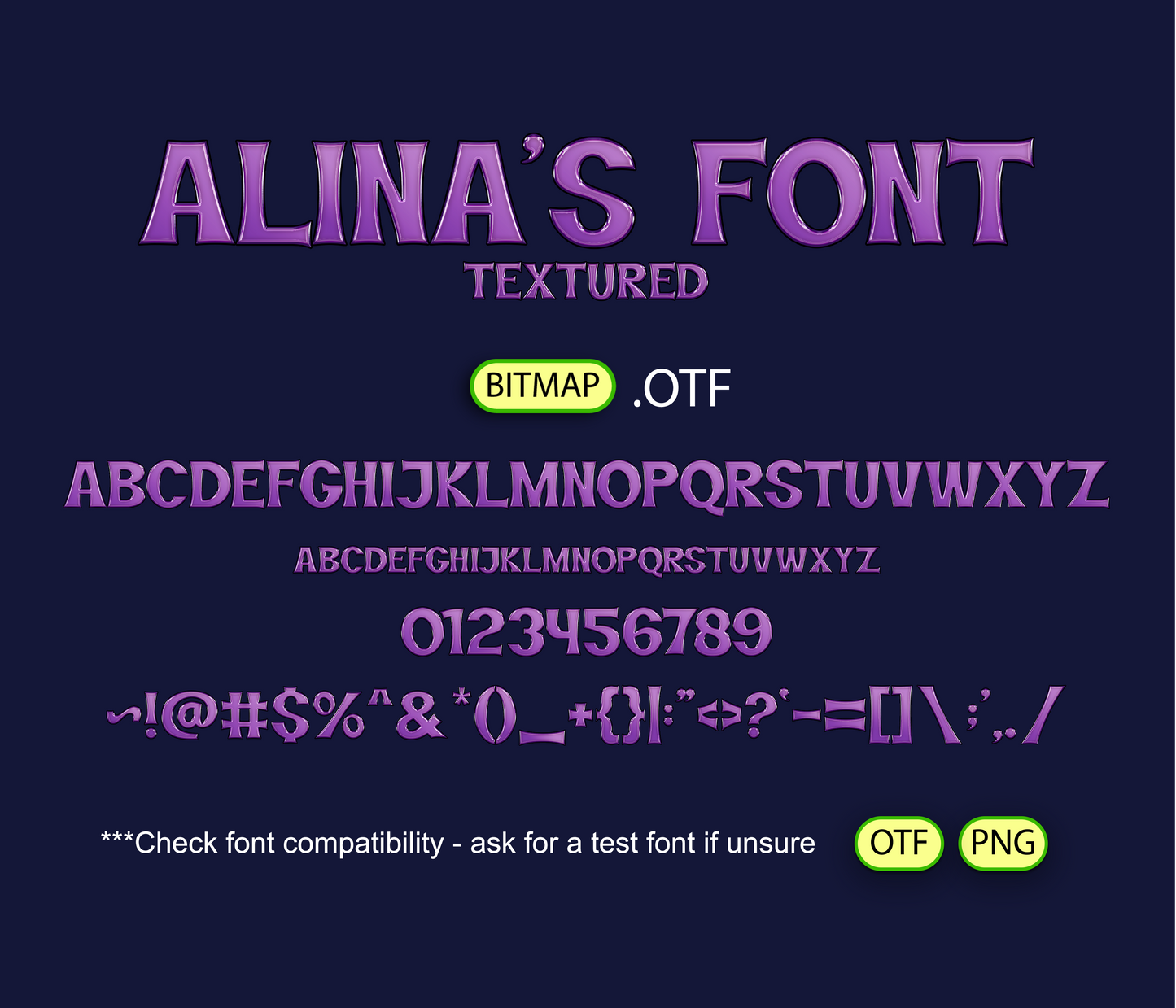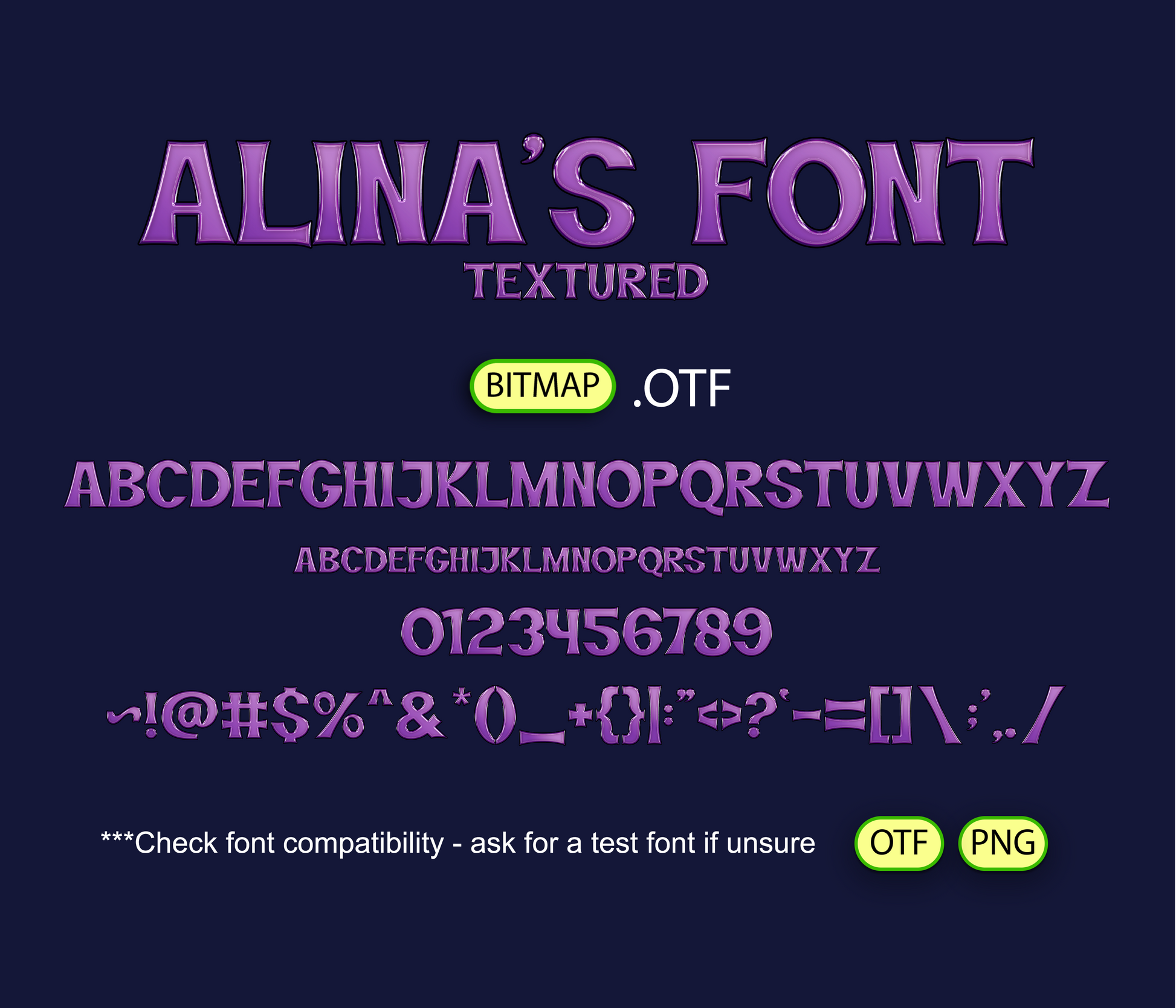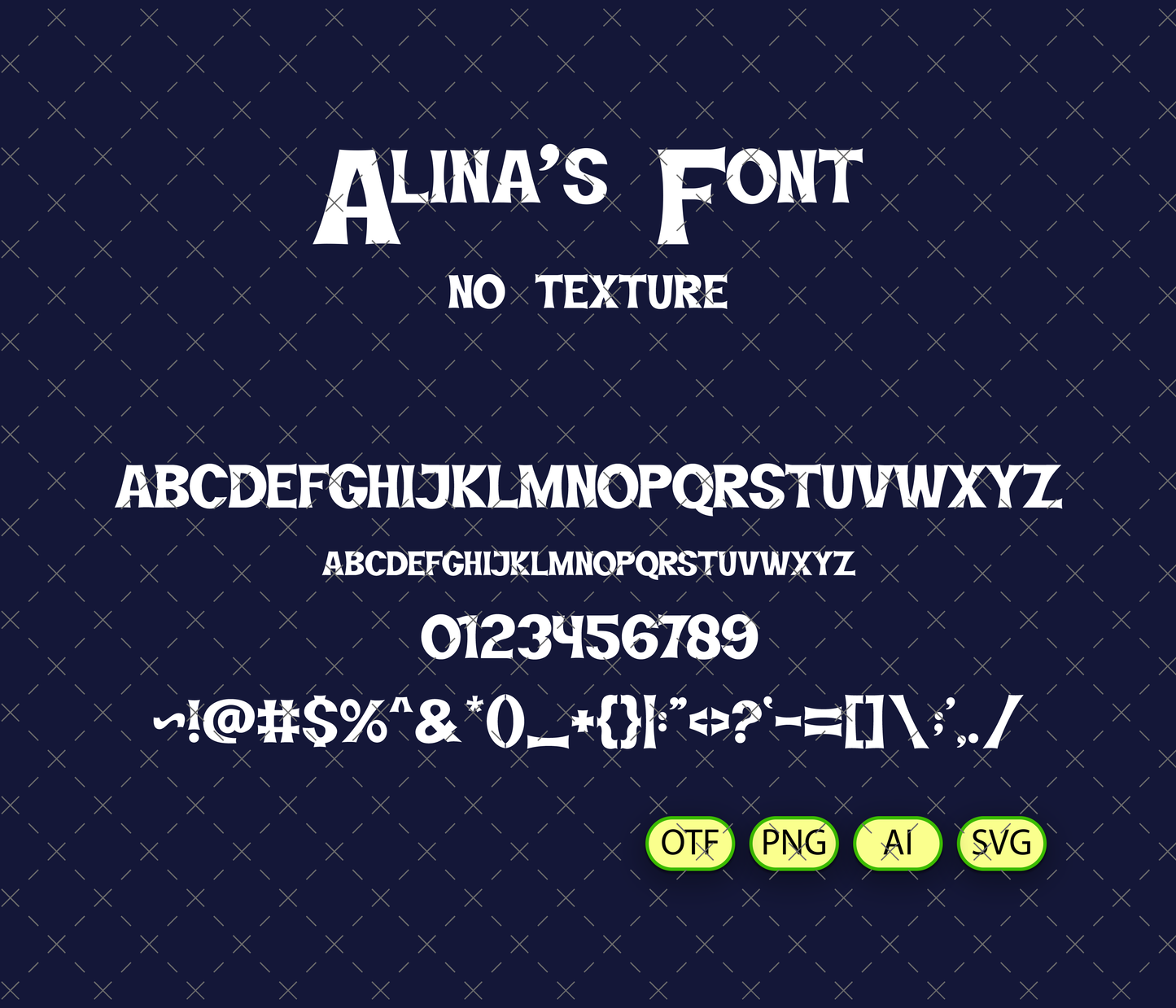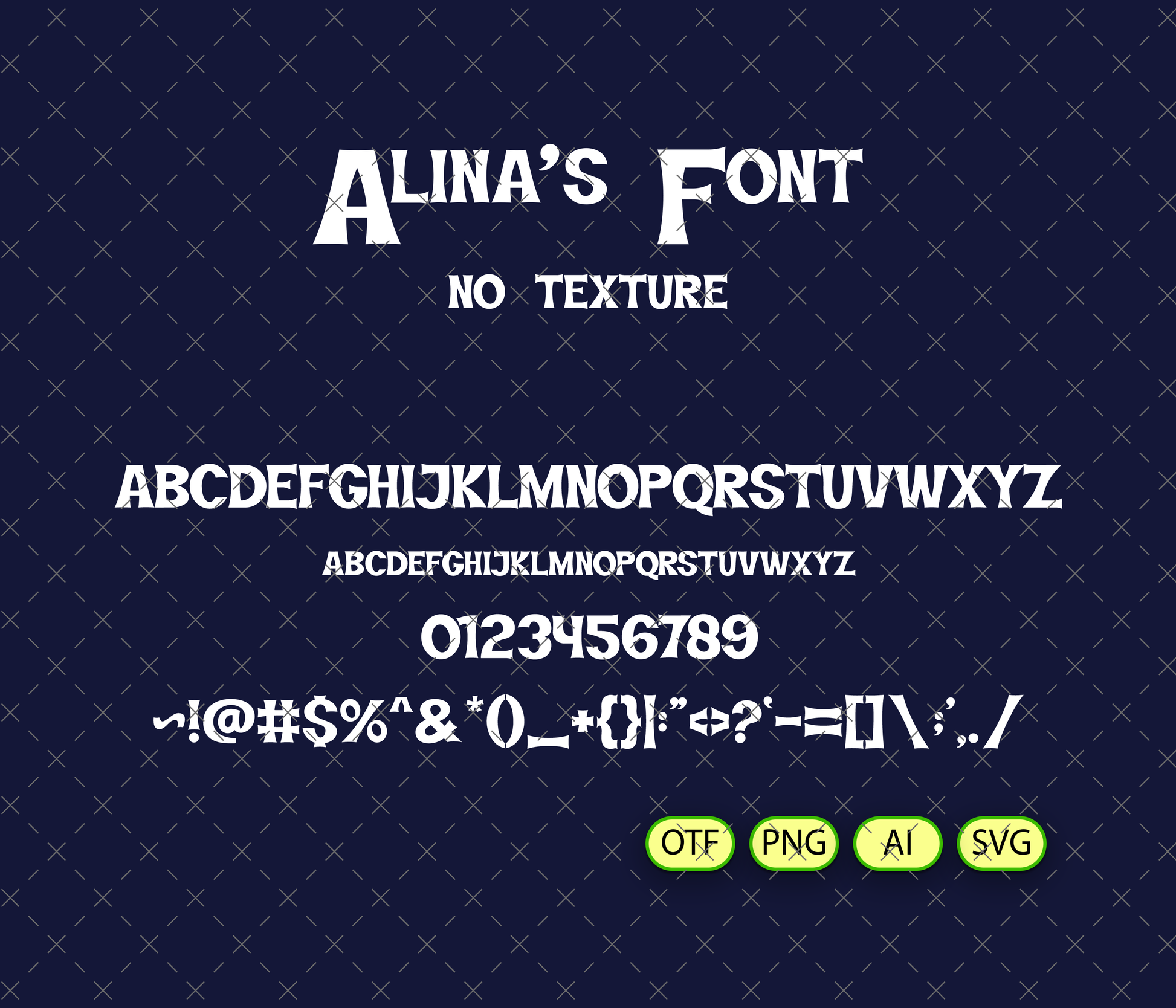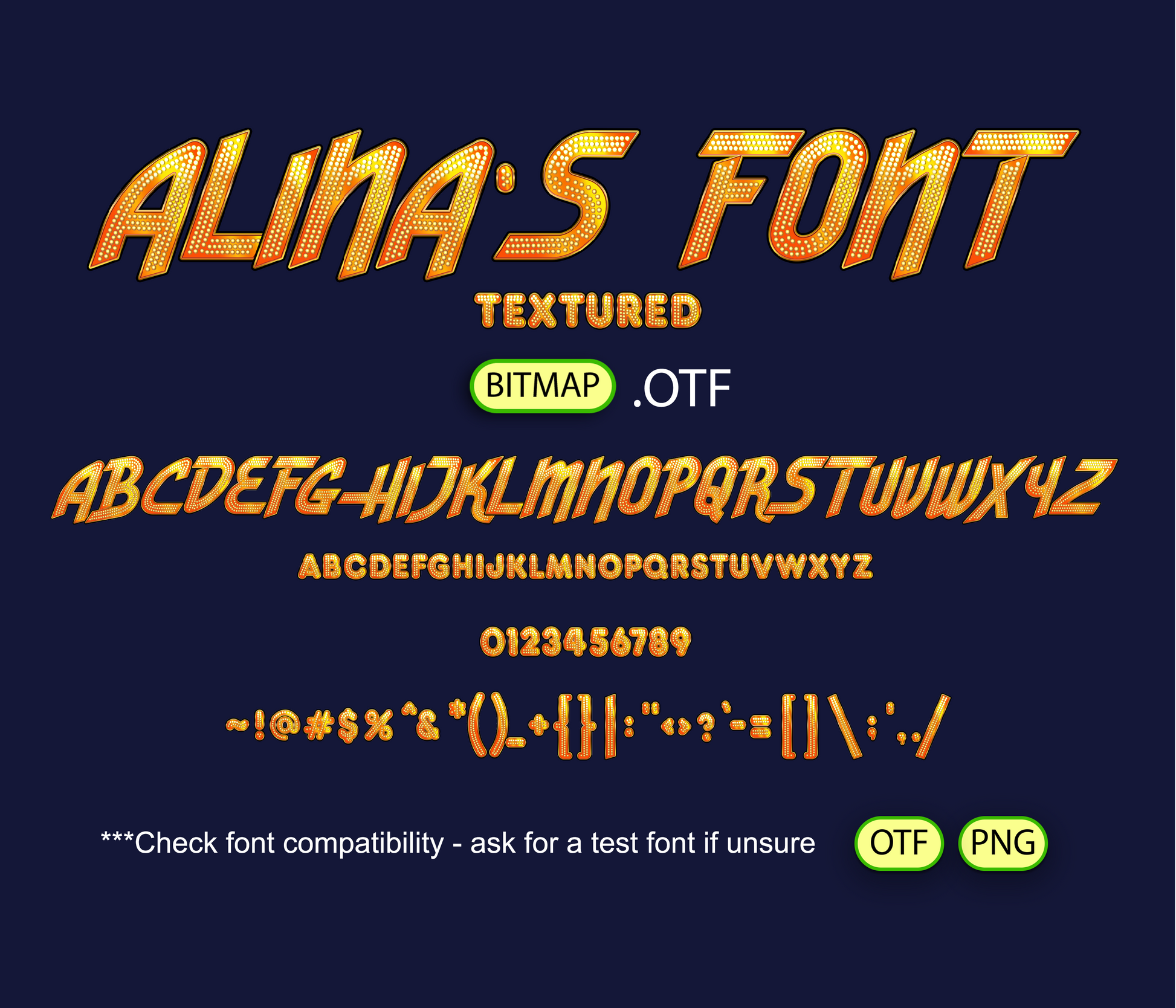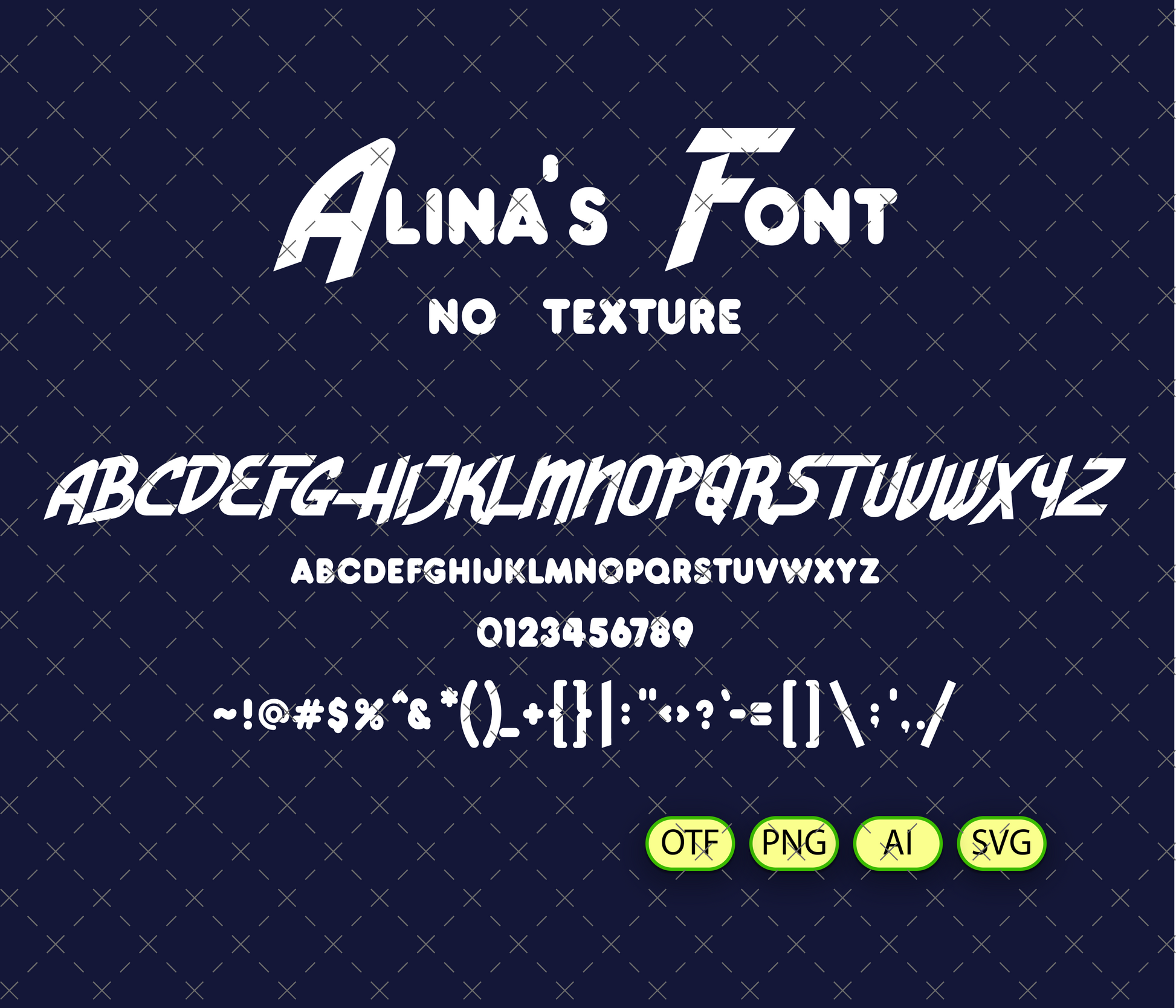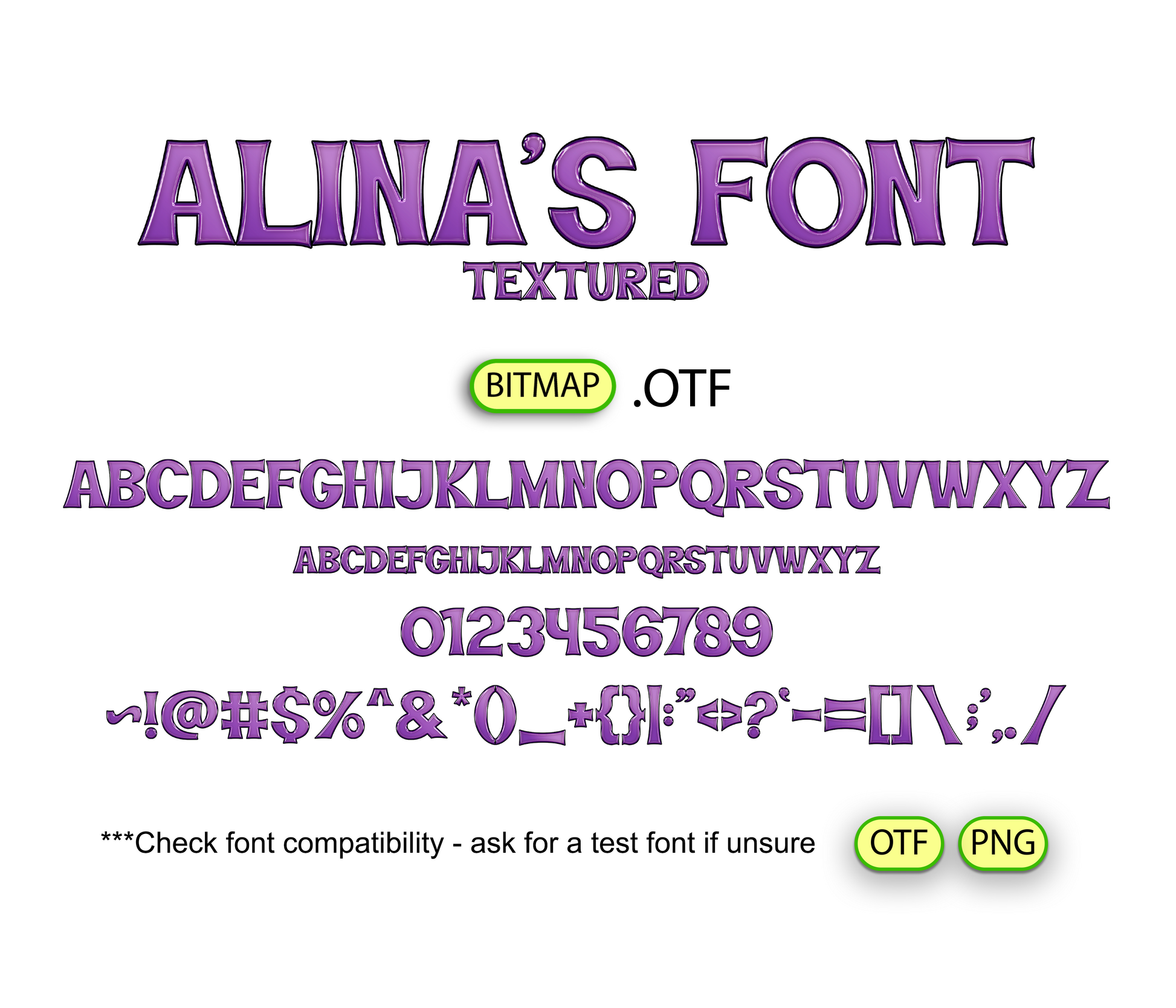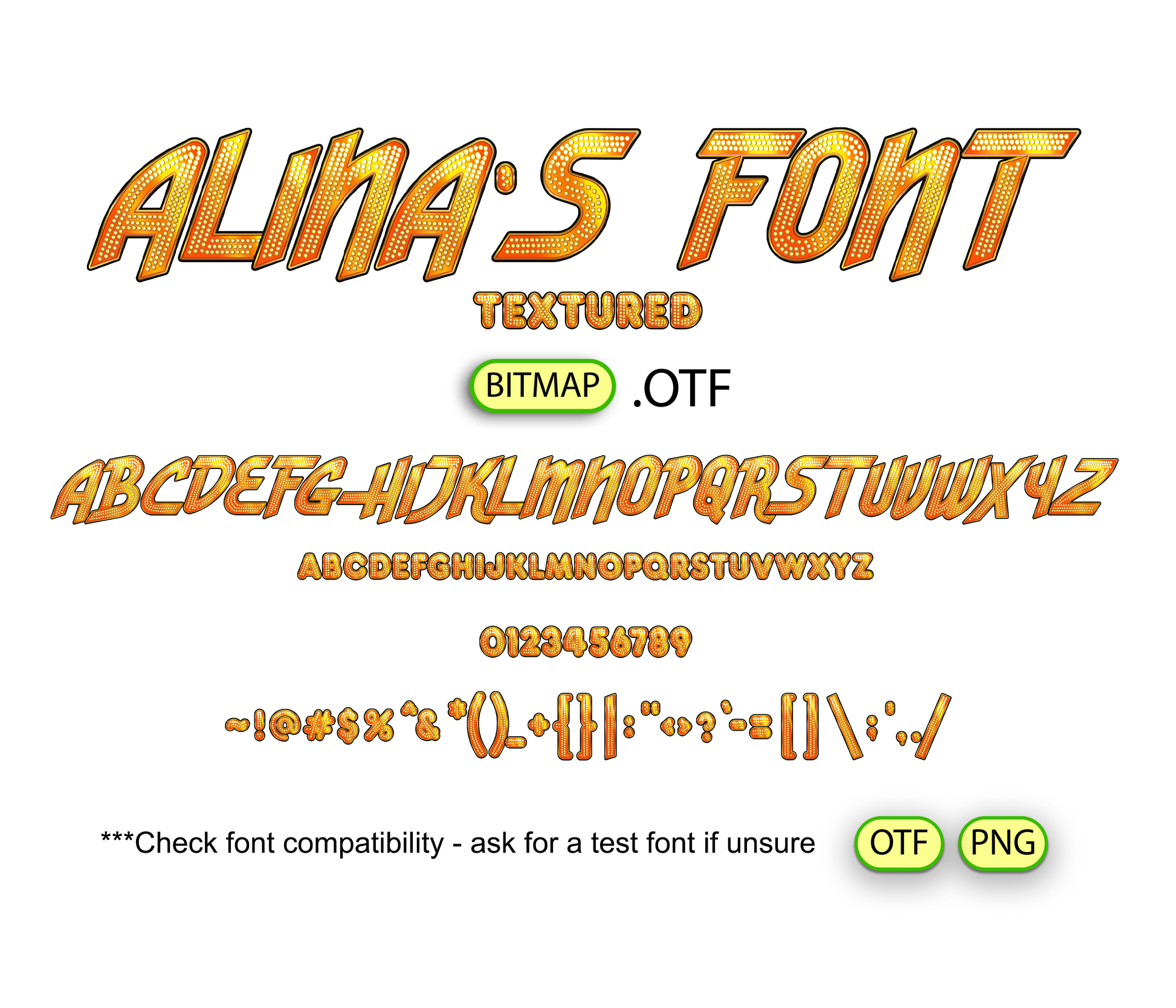
Pop Star Glam Font Textured
Step into the dazzling world of retro pop stardom with our Pop Star Glam Font Textured, capturing the sparkling energy of teenage superstar aesthetics and double-life fantasy narratives. Perfect for pop culture enthusiasts, party planners, content creators, and creative professionals, this font brings the bold, glittery spirit of retro teen idol entertainment to your projects. Create show-stopping invitations, merchandise, or digital content with the shimmering energy of pop star dream culture.
Bold Retro Typography for Pop Culture, Party & Entertainment Design Projects
Our Pop Star Glam Font Textured features dramatic, stylized letterforms bursting with retro glitter textures and flashy pop star energy, reflecting the world of teenage idol fantasy and sparkling stage performance aesthetics. Ideal for:
- Event Promotions: Create show-stopping invitations, posters, and banners for pop star themed parties, retro teen idol celebrations, music-inspired gatherings, and glamorous family events that capture the spirit of dazzling stage entertainment
- Merchandise Design: Perfect for t-shirts, posters, stickers, tote bags, and accessories that showcase the bold glittery aesthetic of retro pop star fashion and teen idol culture
- Digital Media: Enhance websites, blogs, and social media with sparkling headers and graphics that express the vibrant energy of pop star fantasy and retro teen entertainment design
- Creative Content: Add authentic glam flair to pop culture illustrations, character designs, and creative projects inspired by retro teen idol narratives and double-life superstar storytelling
- Personal Projects: Bring nostalgic pop star energy to scrapbooking, DIY crafts, and home decor inspired by the world of glittery teenage superstar aesthetics
Whether crafting pop culture materials, designing retro star-themed products, or adding a glamorous touch to personal projects, this font communicates the vibrant essence of teenage superstar fantasy aesthetics. Ready to let your designs steal the spotlight? This font is your key to fierce, glittery, show-stopping creativity.